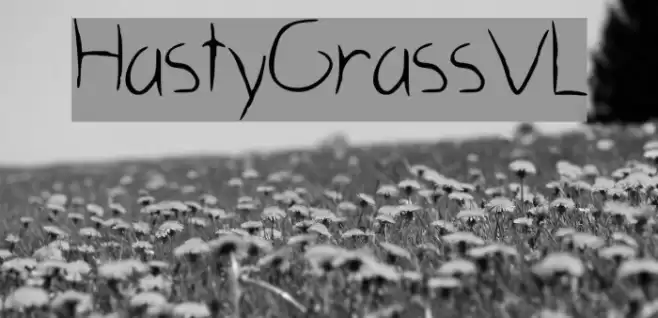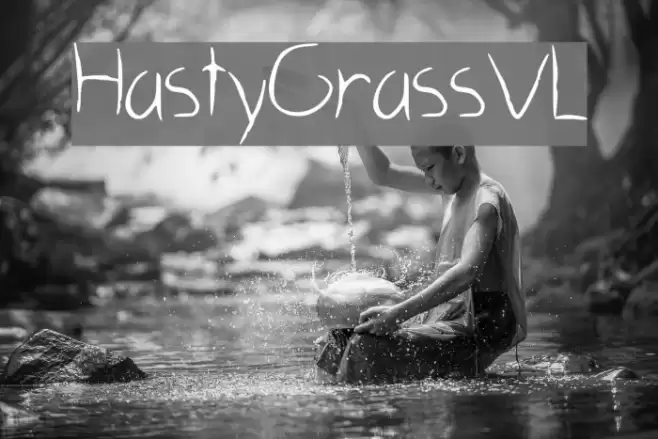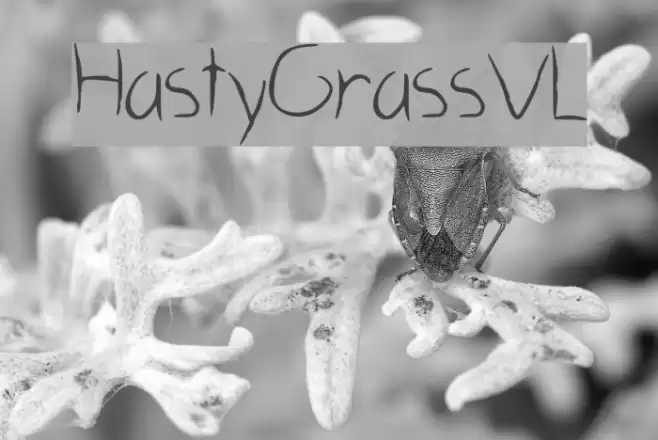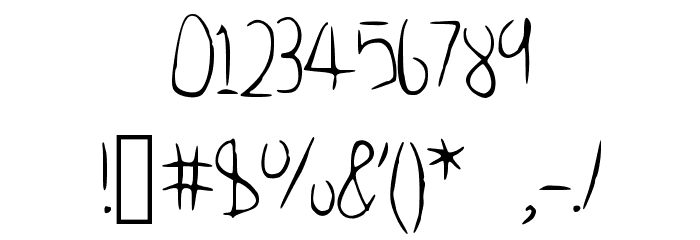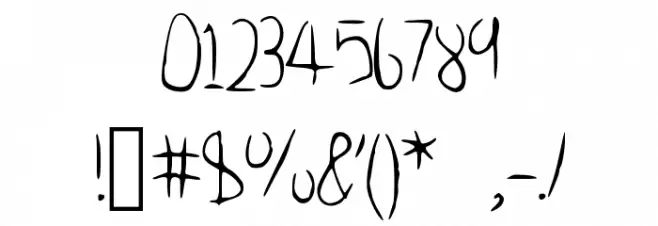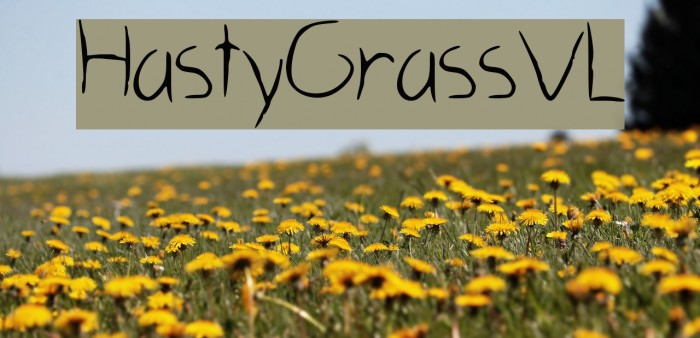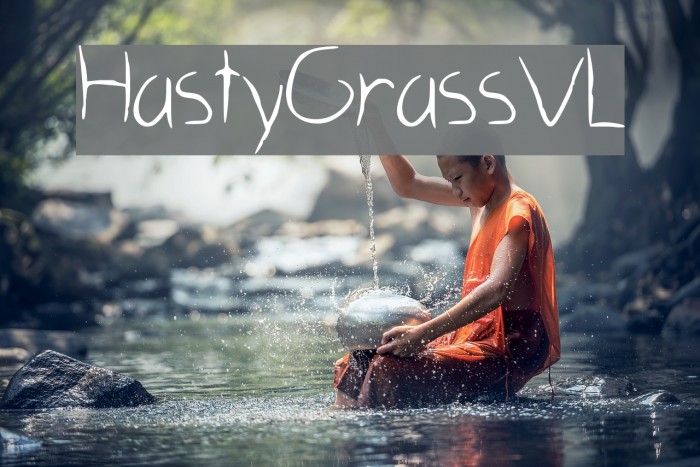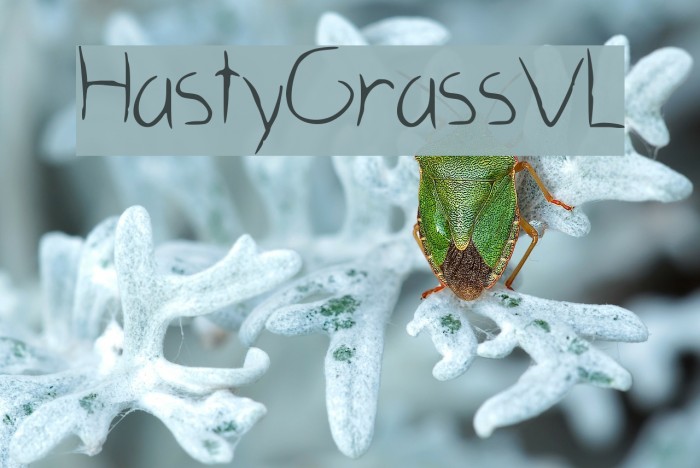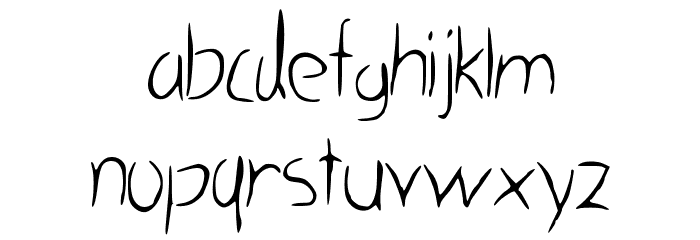
HastyGrass_VL Font
HastyGrass_VL Description
This font features a unique, hand-drawn style with an organic and slightly whimsical appearance. The letters have a playful, uneven quality, with varying stroke thickness that gives it a lively and dynamic feel. The uppercase characters are bold and expressive, while the lowercase letters maintain a consistent flow, adding to the font's charm. Numbers and special characters are crafted with the same artistic flair, making them stand out. The overall design is reminiscent of natural elements, evoking a sense of creativity and spontaneity.
A whimsical, hand-drawn font with playful, uneven strokes and a dynamic feel from Handwritten fonts.